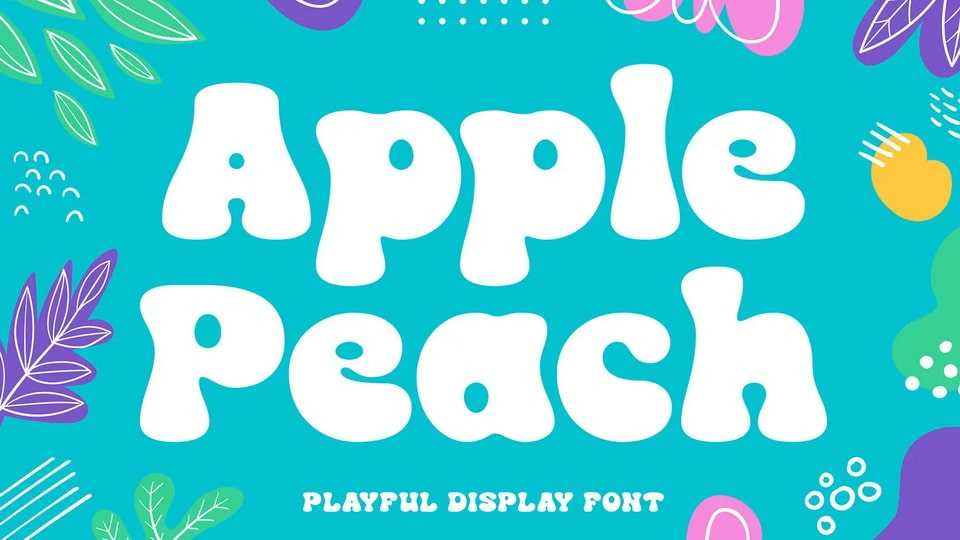
Download Apple Peach, a font that is designed cubby and childish but can also be easily used in the modern era who want to have a fat and smooth design that has a high level of legibility.